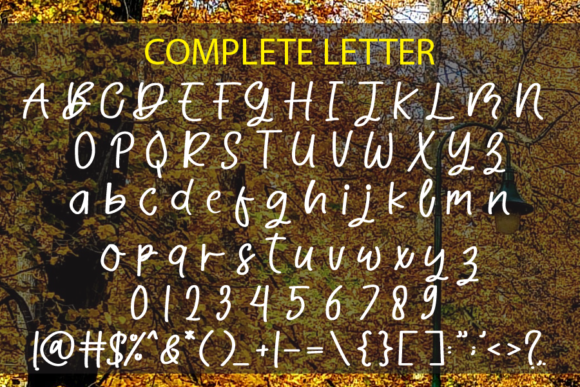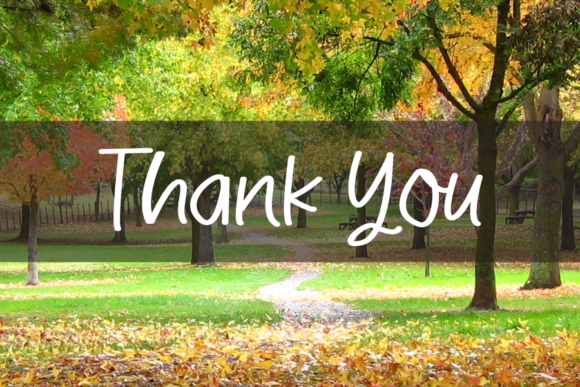
Introduction to Hi Sherly Font
Hi Sherly is a magical handwritten font.
This gentle font will look gorgeous on a variety of design ideas It will add a joyful and romantic touch to each of your projects.
Hi Sherly Font offers exceptional quality and versatility, making it a valuable addition to your design toolkit. Whether you’re creating for personal projects or commercial use, Hi Sherly Font delivers professional results.